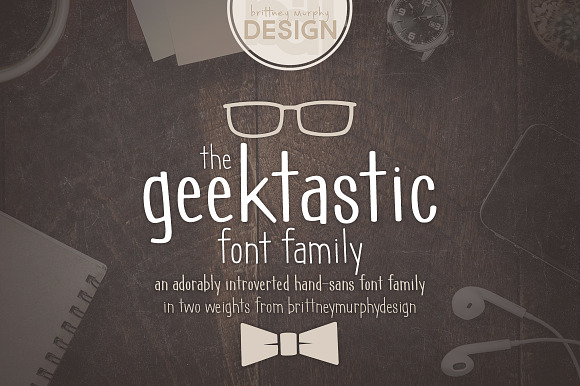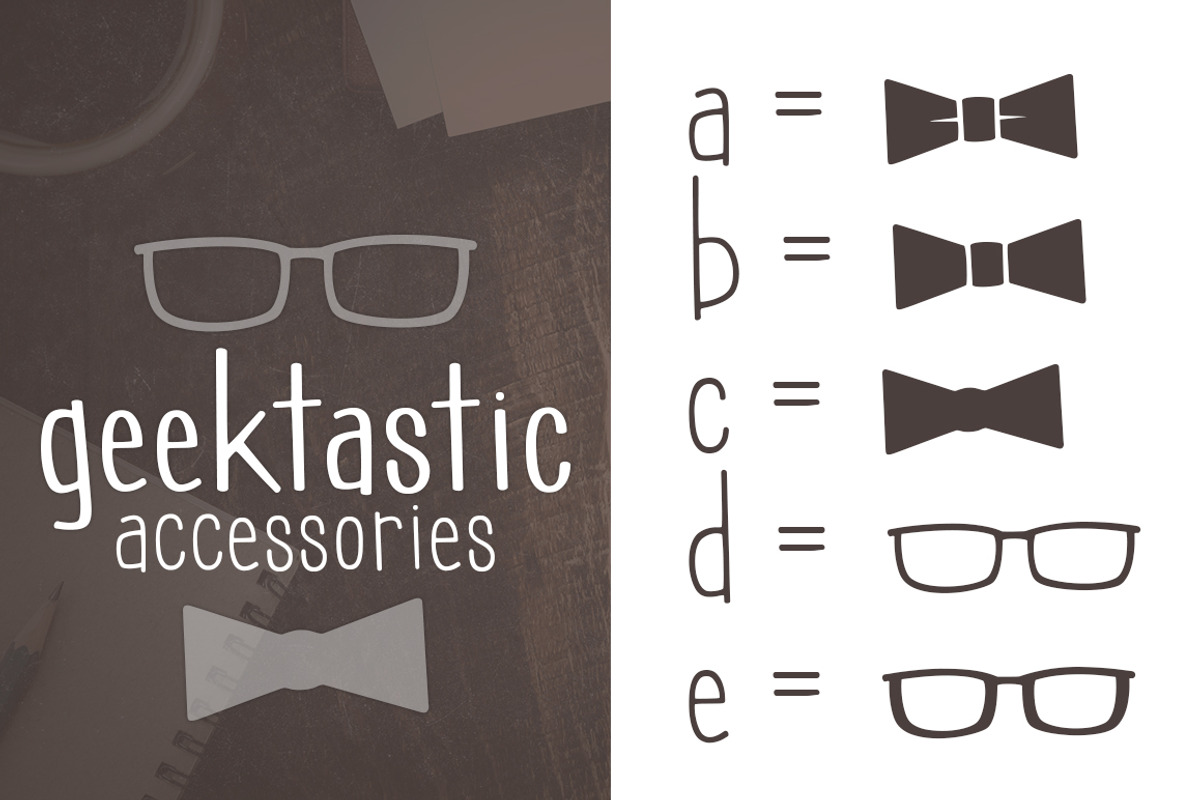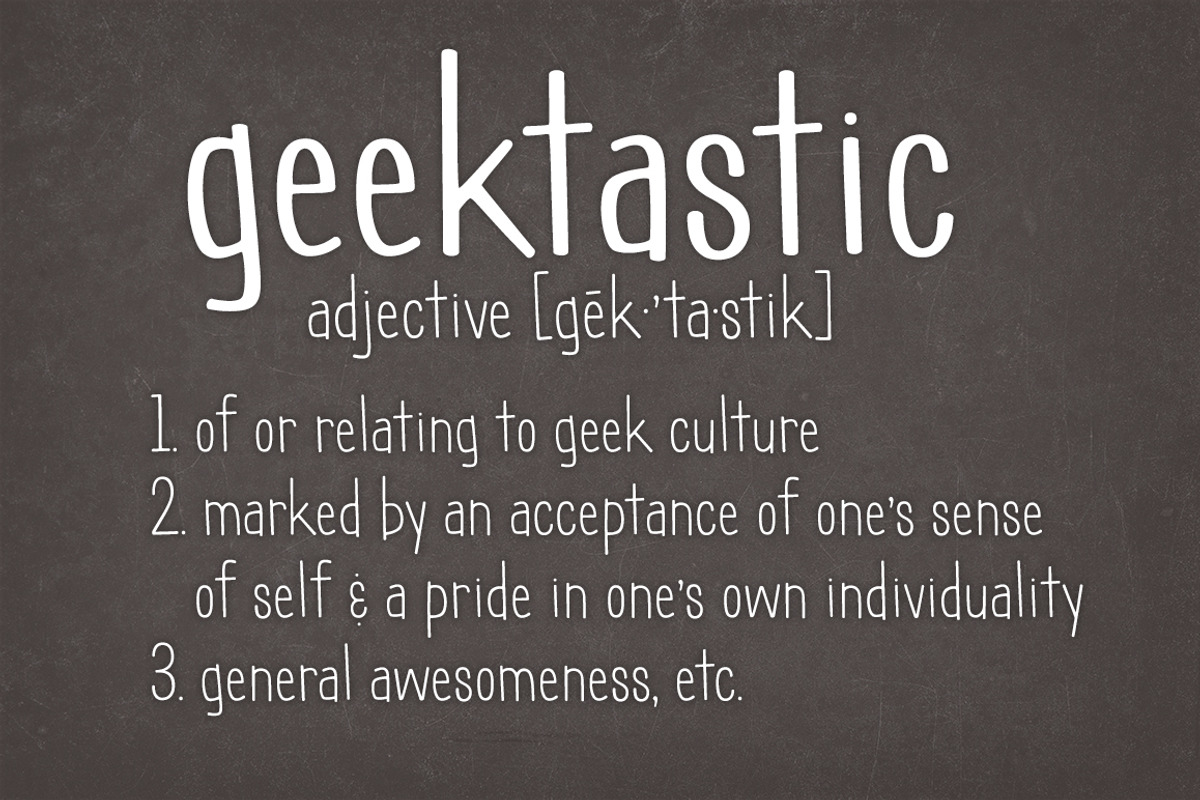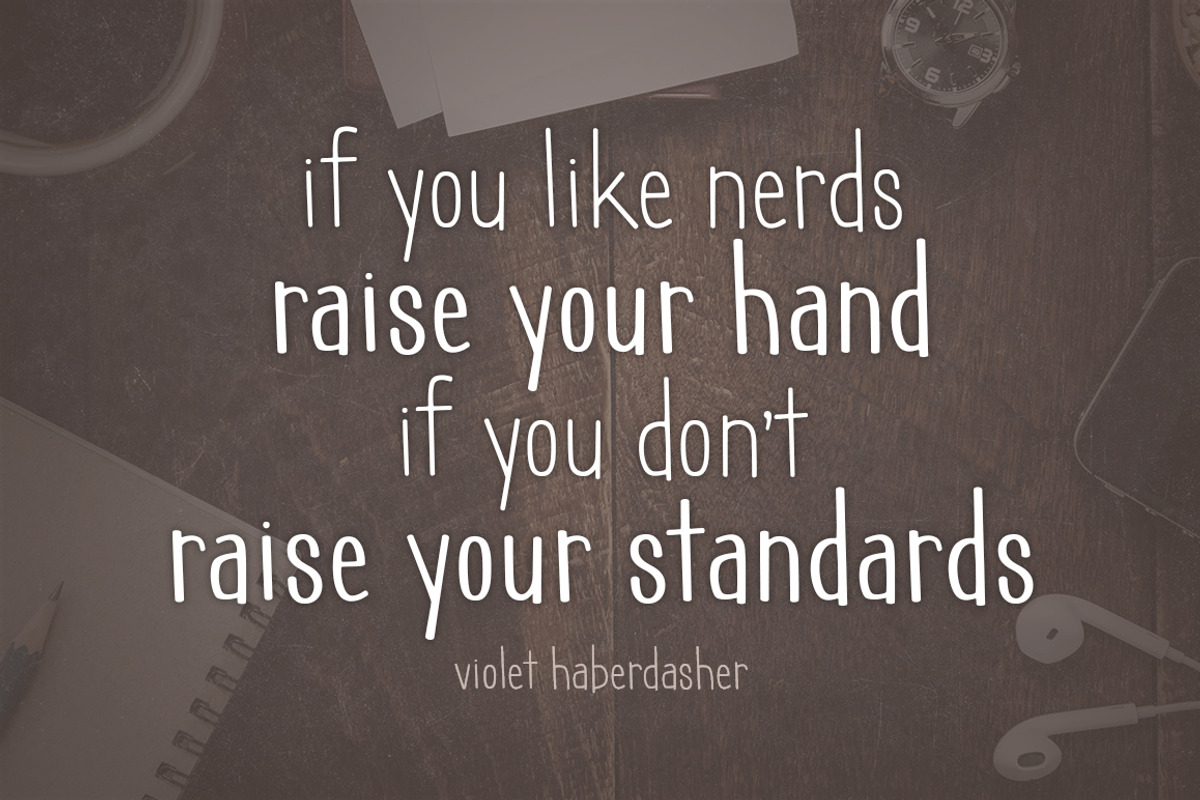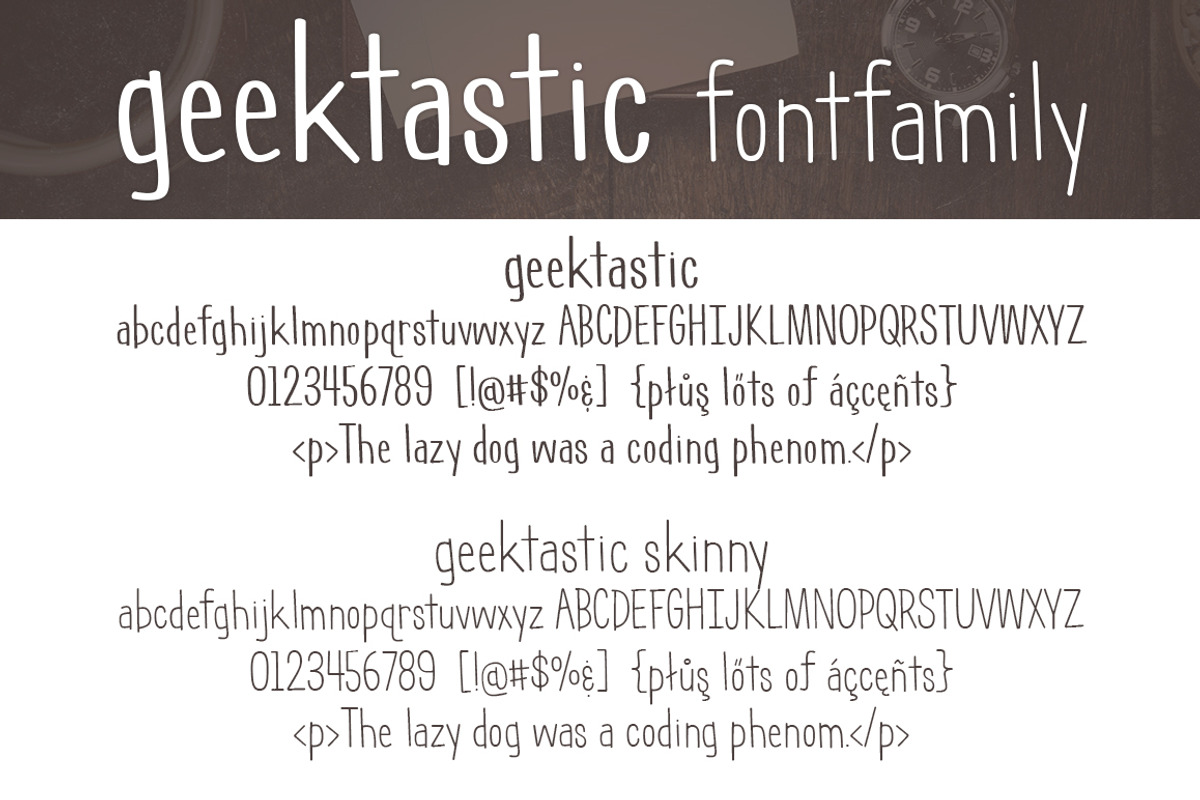
Geektastic Font Family
Geektastic is a tall and lanky, adorably introverted hand-sans in two weights- regular and skinny. It’s quirky, yet understated, and even comes with an ‘accessories font’ with five characters- 3 bowties and two sets of glasses.
- It’s quirky, yet understated, and even comes with an ‘accessories font’ with five characters- 3 bowties and two sets of glasses.
- Includes 366 characters, with lots of accented letters.